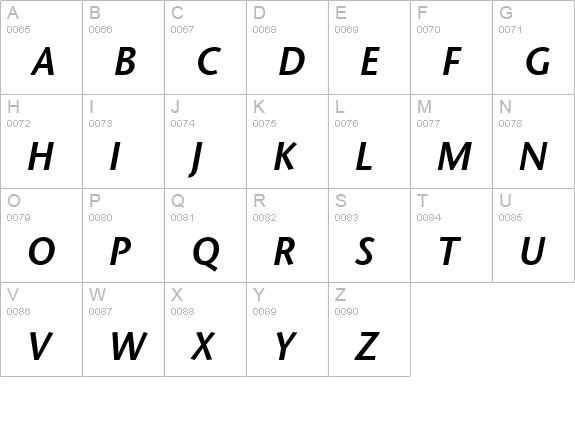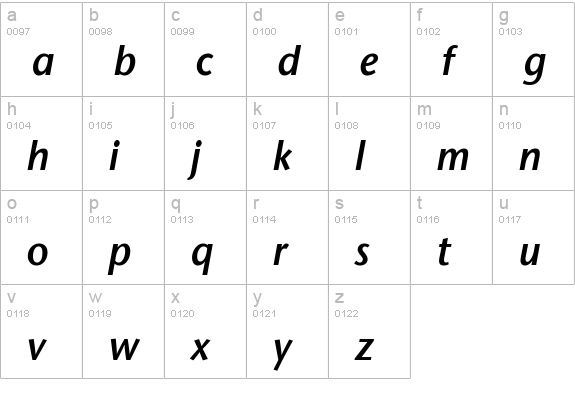
Mesouran Sans SSi Semi Bold Italic is a strong, high-contrast, italic variant in the Mesouran typeface family \xE2\x80\x94 well suited to headlines, attention-grabbing titles, and strong calls-to-action.
Mesouran Sans SSi Semi Bold Italic is a modern and versatile typeface that strikes the perfect balance between elegance and readability. With its semi-bold weight and stylish italic slant, this font exudes confidence and sophistication, making it ideal for a wide range of design projects. Whether you're working on a sleek branding campaign, a professional presentation, or a stylish editorial layout, Mesouran Sans SSi Semi Bold Italic will bring a touch of refinement to your work. Its clean lines and subtle curves create a harmonious visual rhythm that captivates the eye and ensures maximum impact. And the best part? Mesouran Sans SSi Semi Bold Italic is available for free download at FontsMarket.com. This means you can easily access this high-quality font without breaking the bank, making it a valuable addition to your typographic toolkit. So go ahead and elevate your designs with Mesouran Sans SSi Semi Bold Italic – a versatile and elegant font that is both stylish and free for you to use.